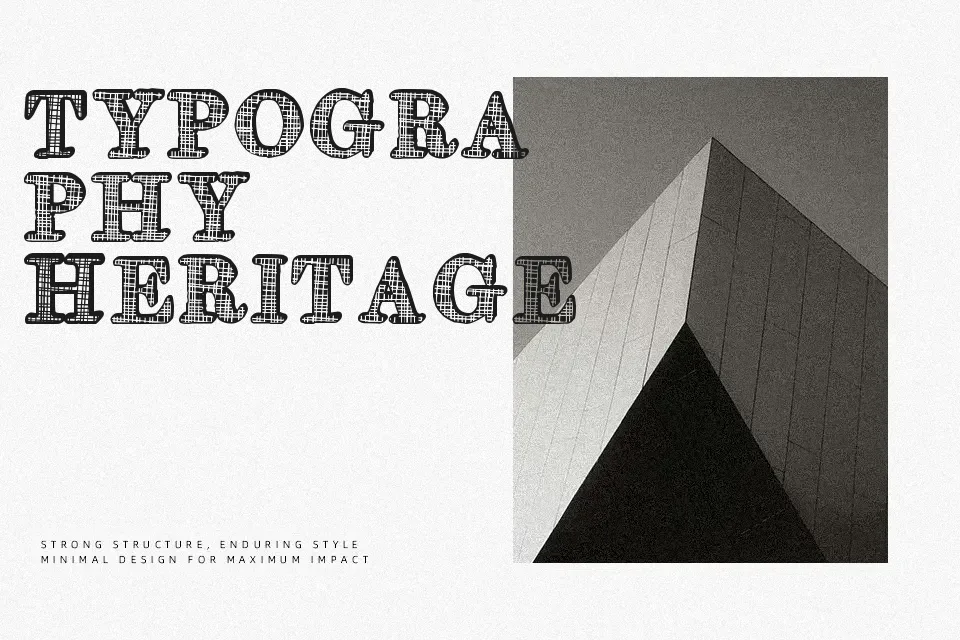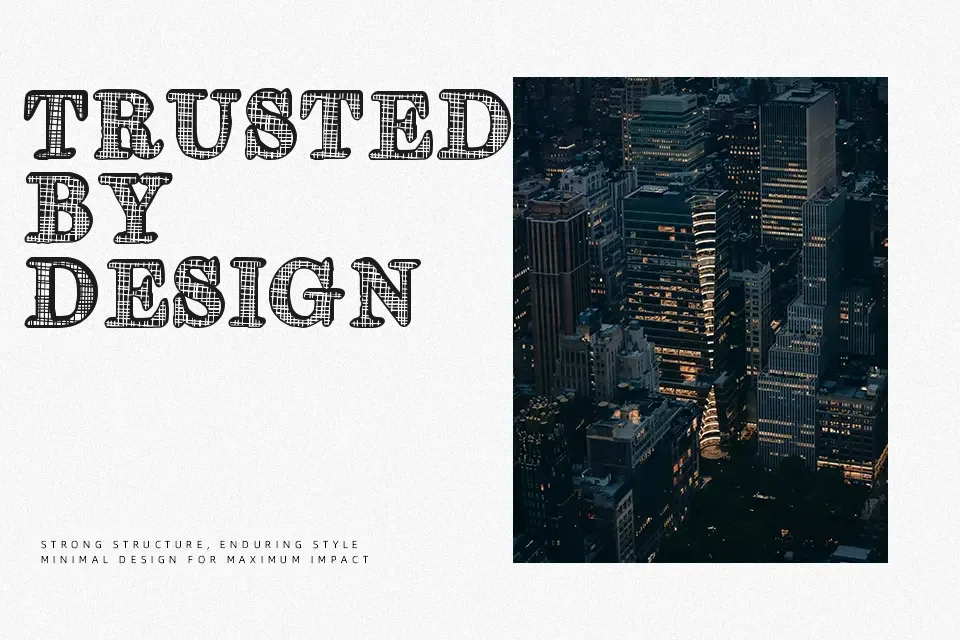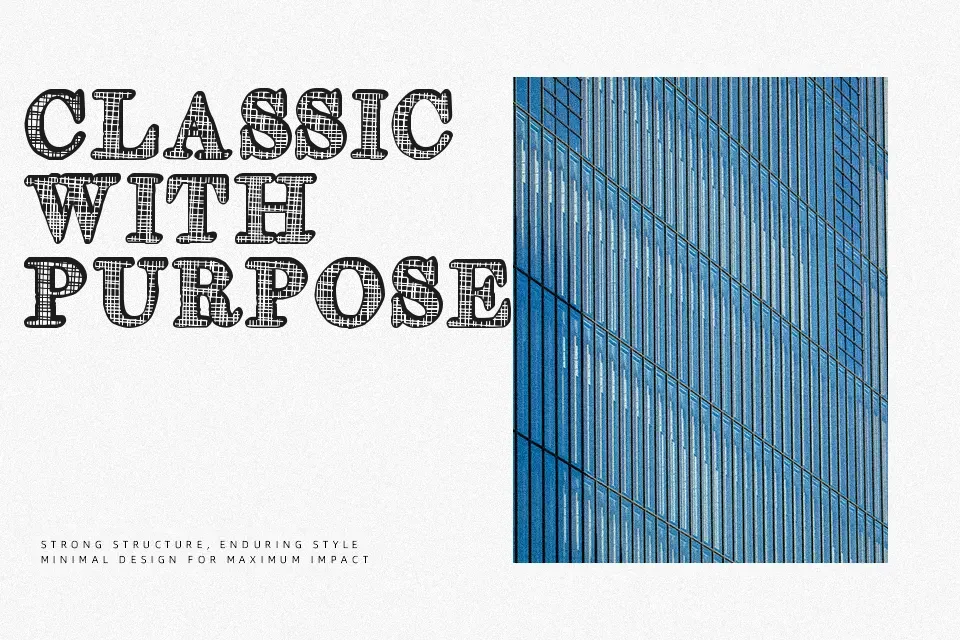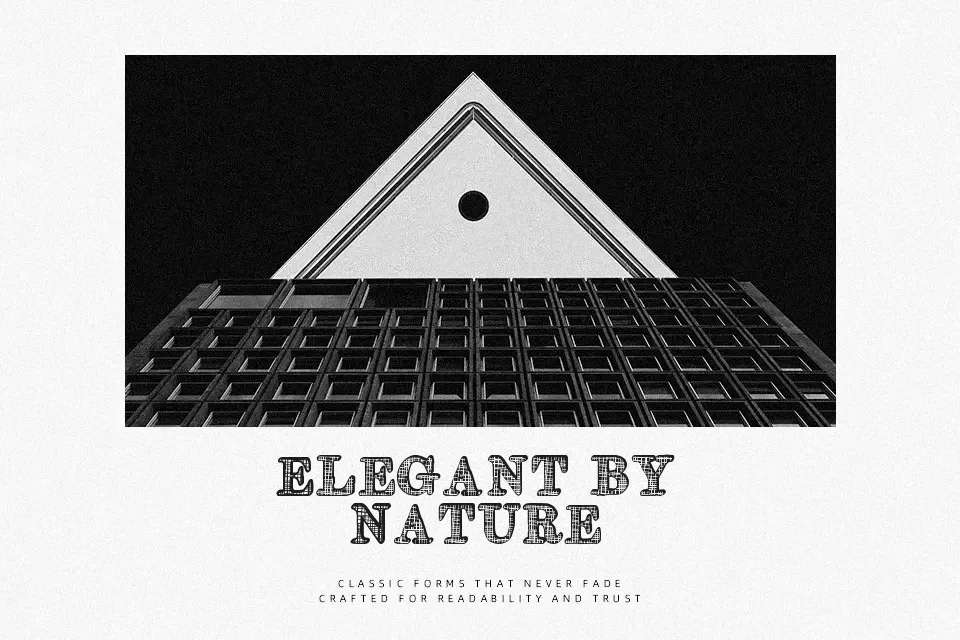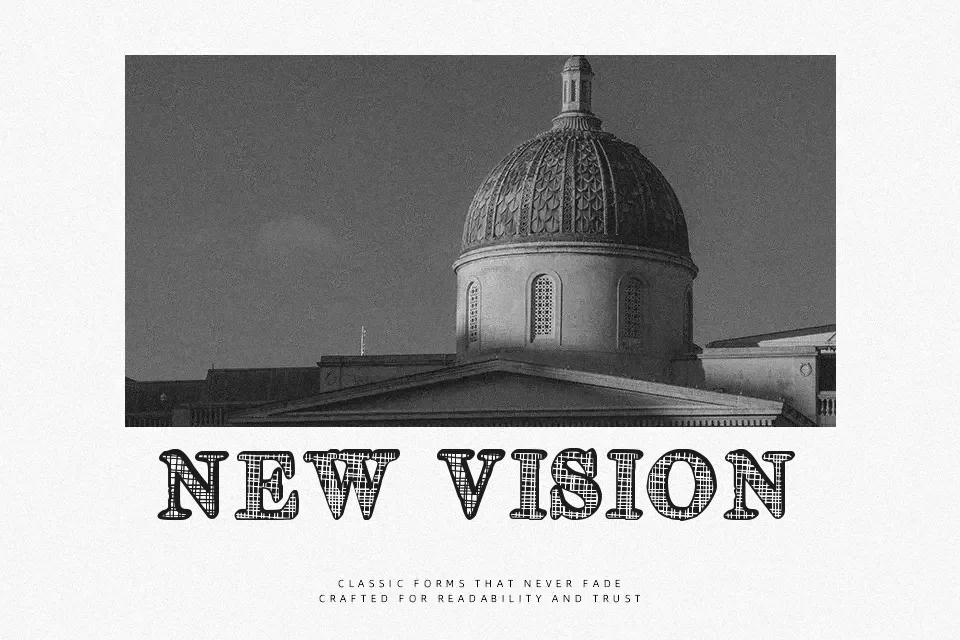
Older ST Font
Designed by Southype
Older ST works best as prominent display lettering, using decorative serif-like forms, varied stroke weight, and compact proportions to create an ornamental visual rhythm. The character shapes are more expressive than neutral, so they hold attention in titles, labels, and short identity work rather than disappearing into a layout. Spacing appears most effective when given room at larger sizes, where the individual details remain easier to distinguish. The typeface can give a headline a period-inspired, artistic presence. Its dense decorative treatment is less comfortable for small copy or extended passages.
Best For: vintage product packaging,poster headlines,album cover titles,restaurant signage
Perfect for headline, logo, and music, with a artistic and decorative style.